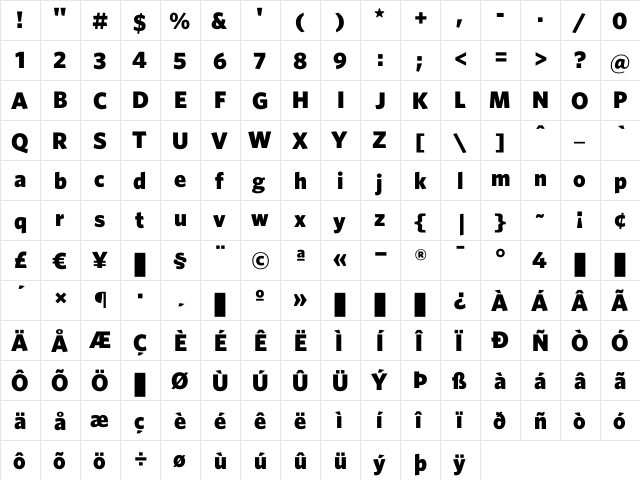
Whitney Black
Design Context for Whitney Typeface
Whitney takes a measured approach to typography — its balanced proportions and neutral character make it a reliable workhorse for both digital and print work.